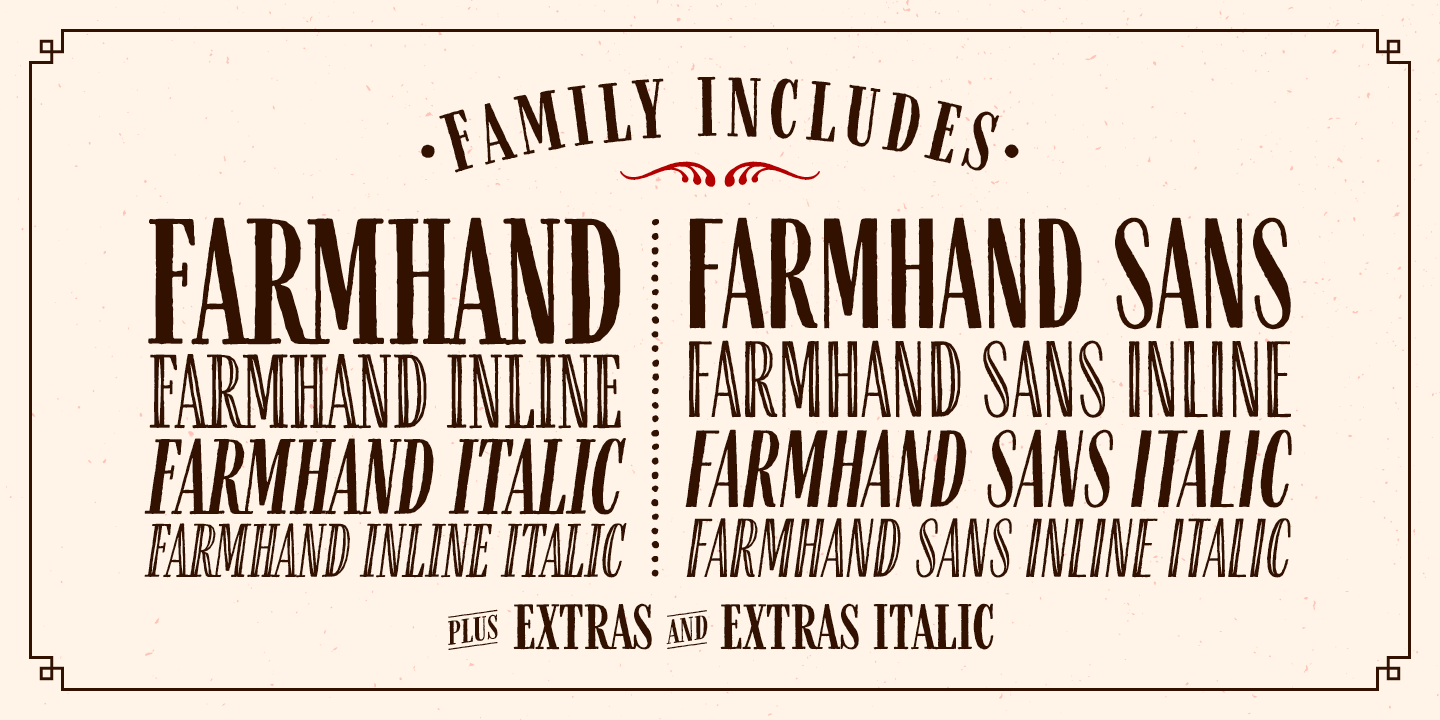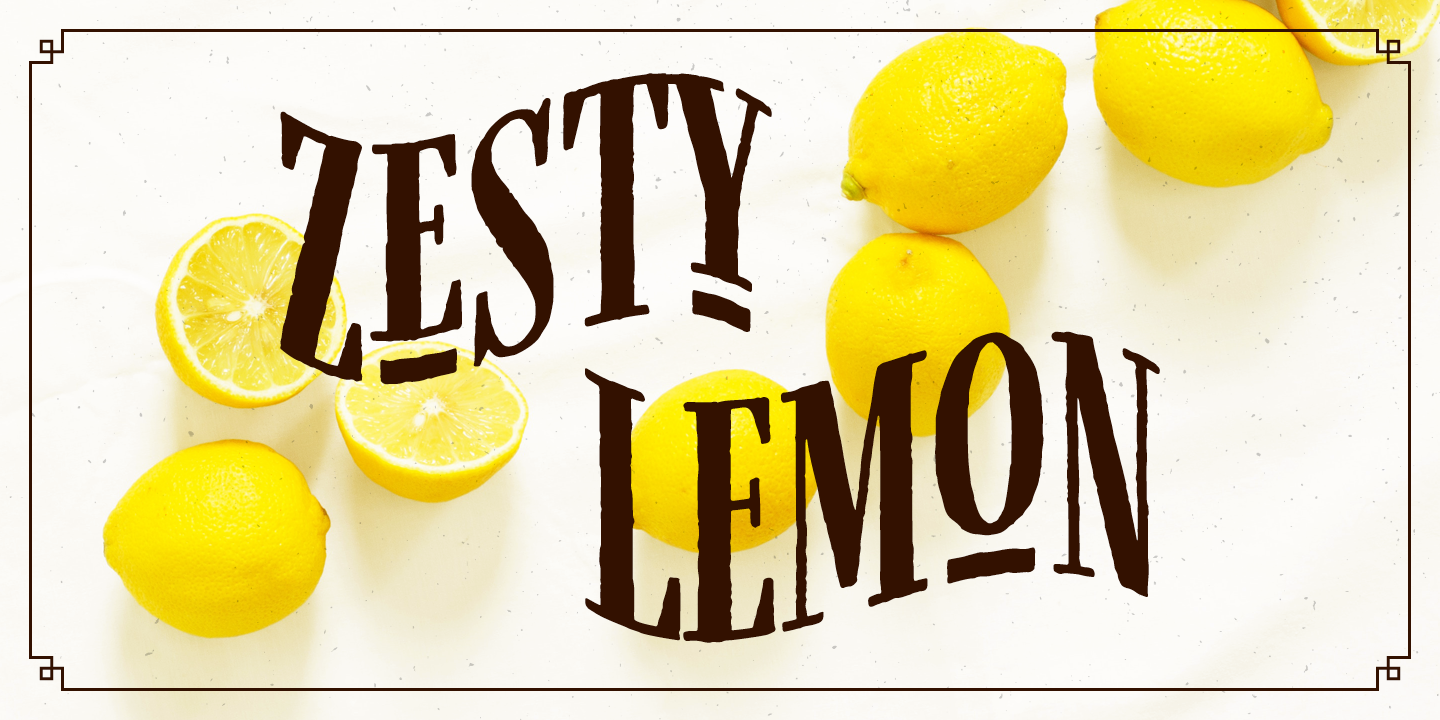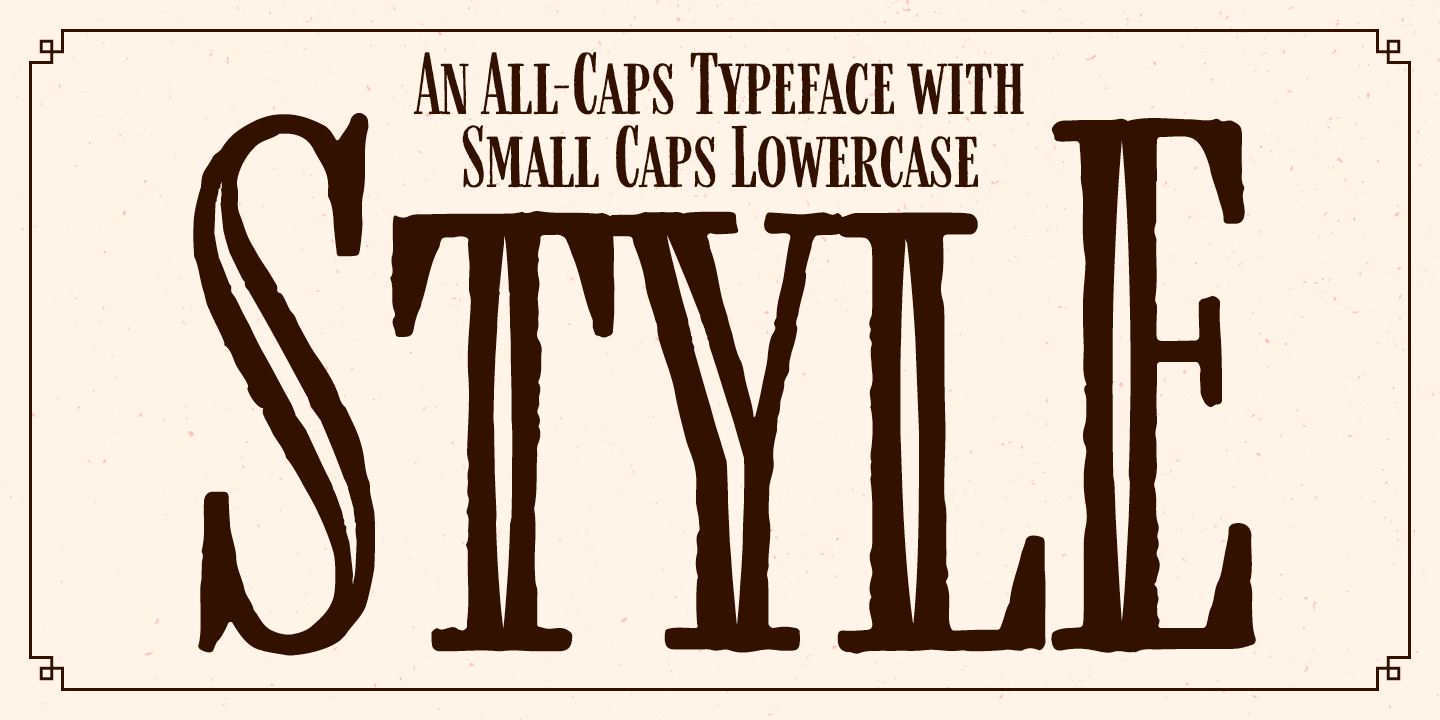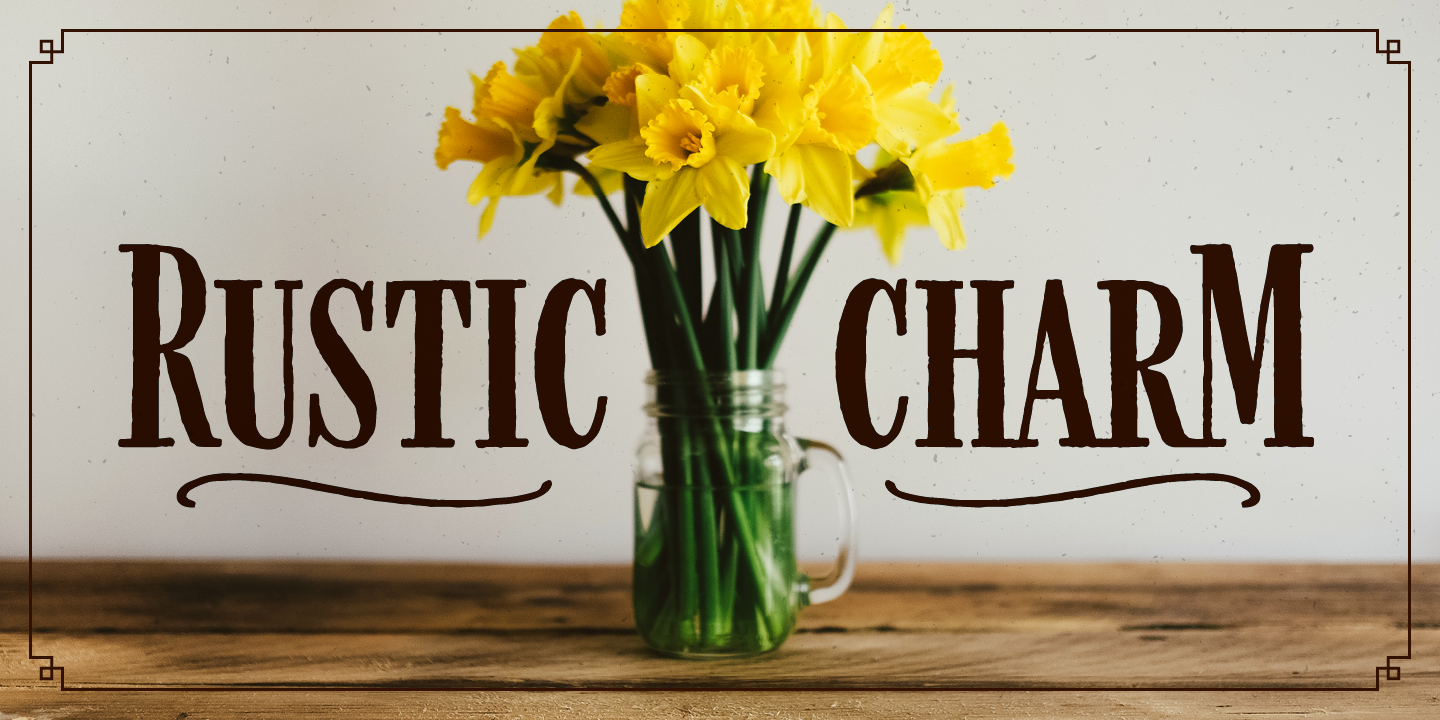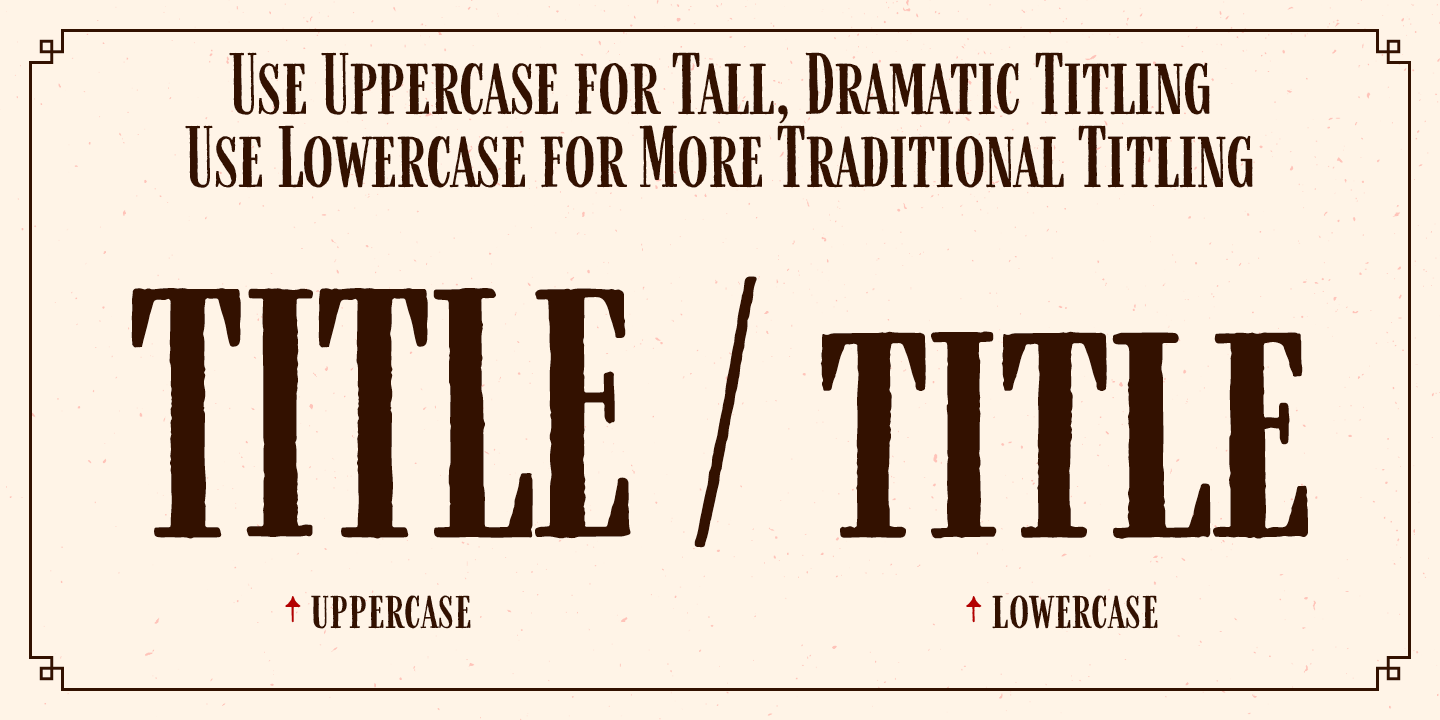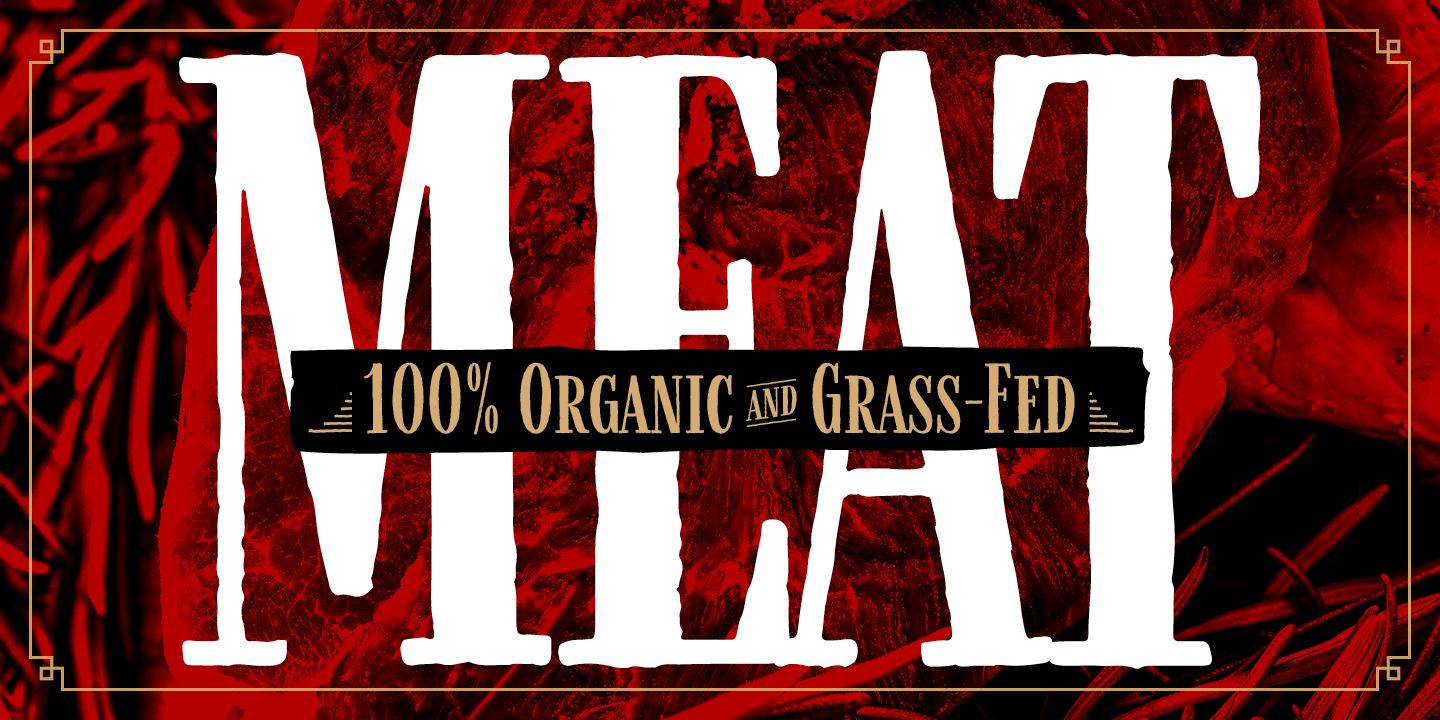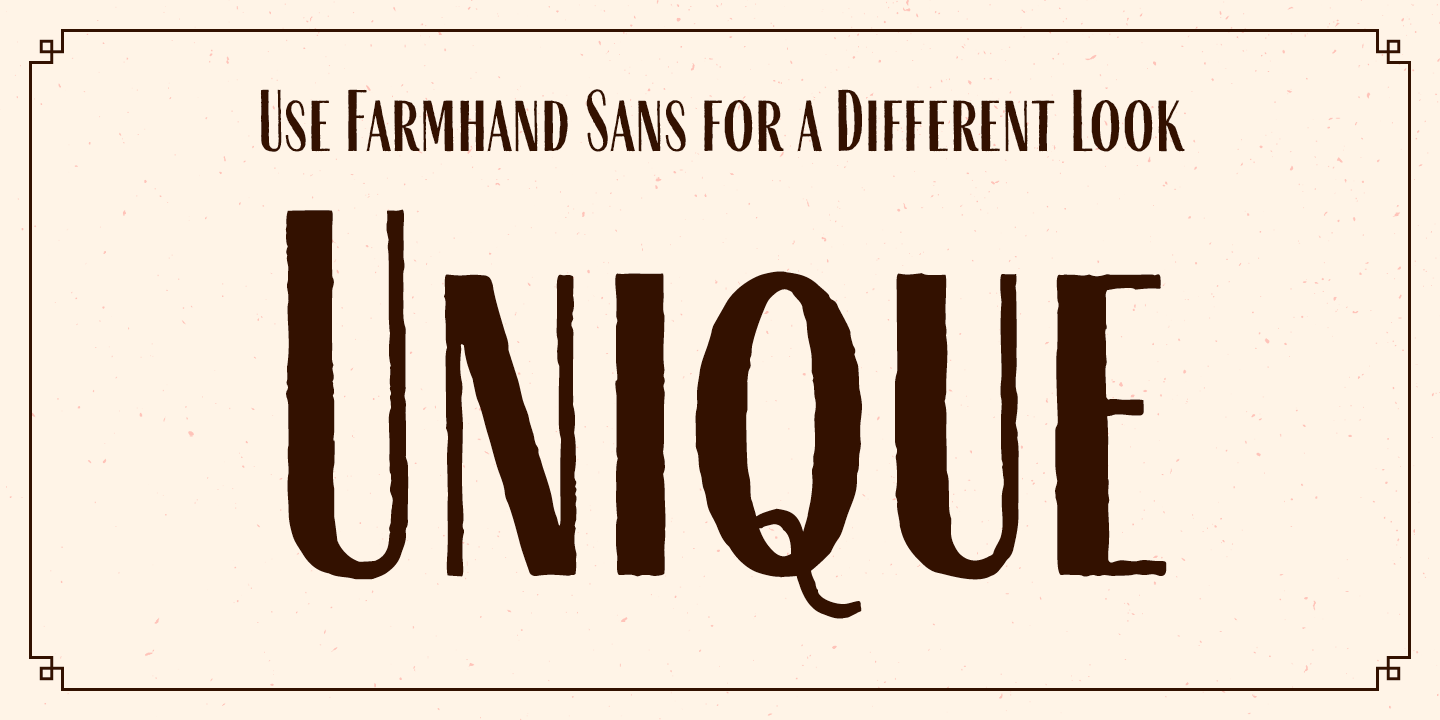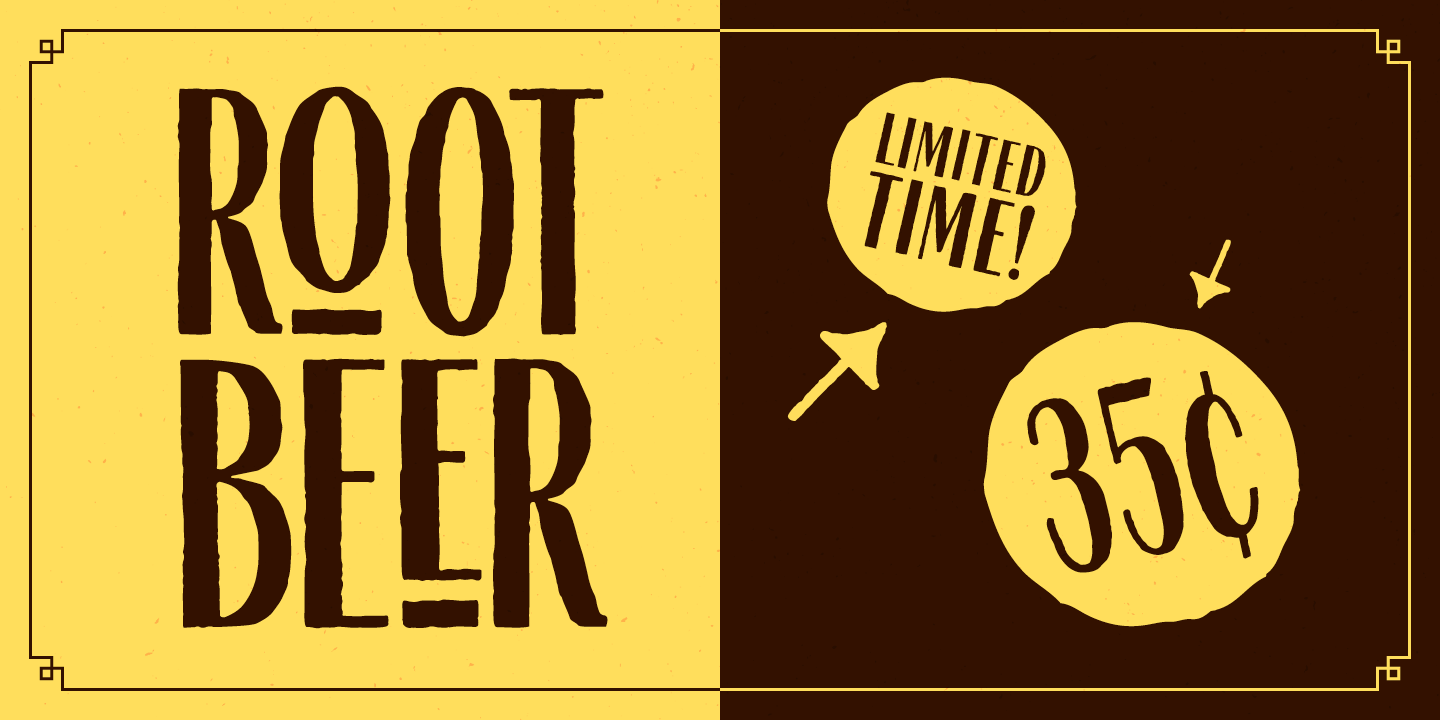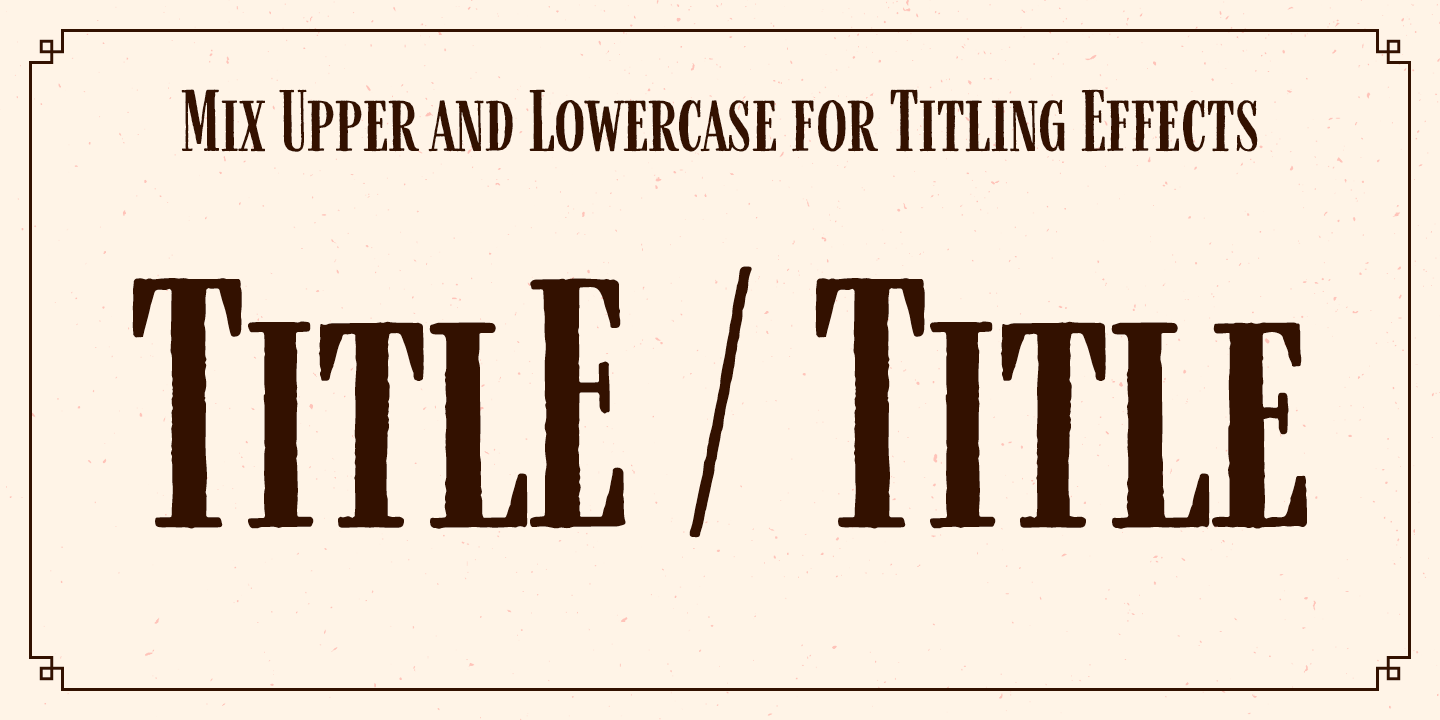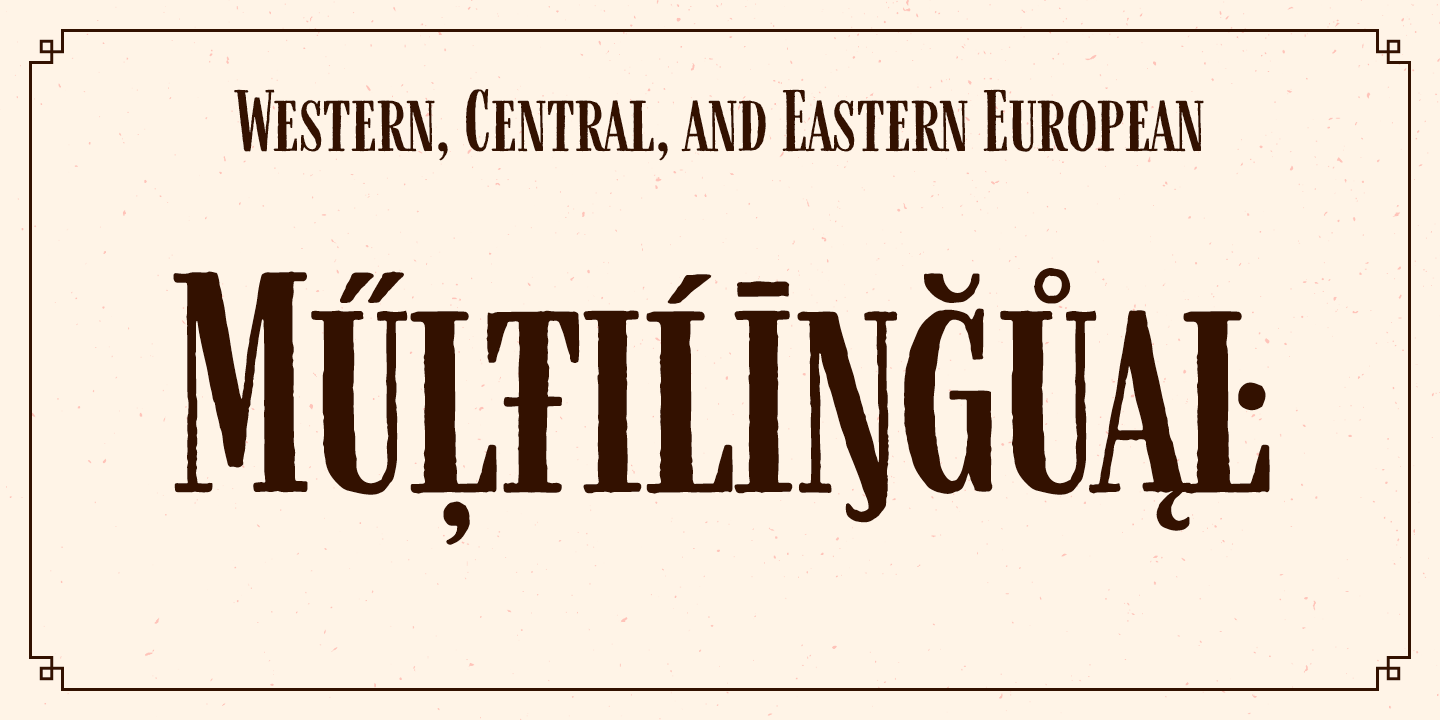
Farmhand is a textured, hand drawn, condensed font family featuring serif, sans, inline, italic, and extras styles suited for display titling. An all-caps typeface with individually drawn small caps for lowercase. Experiment by mixing and matching the casing for a variety of titling effects.
The sans style gives a different look and still has the vintage appeal. Switch to the inline styles to add more distinction to your type. Or introduce the matching catchwords and ornaments in the extras style. Also included are stylistic alternates for the uppercase vowels for more flair.